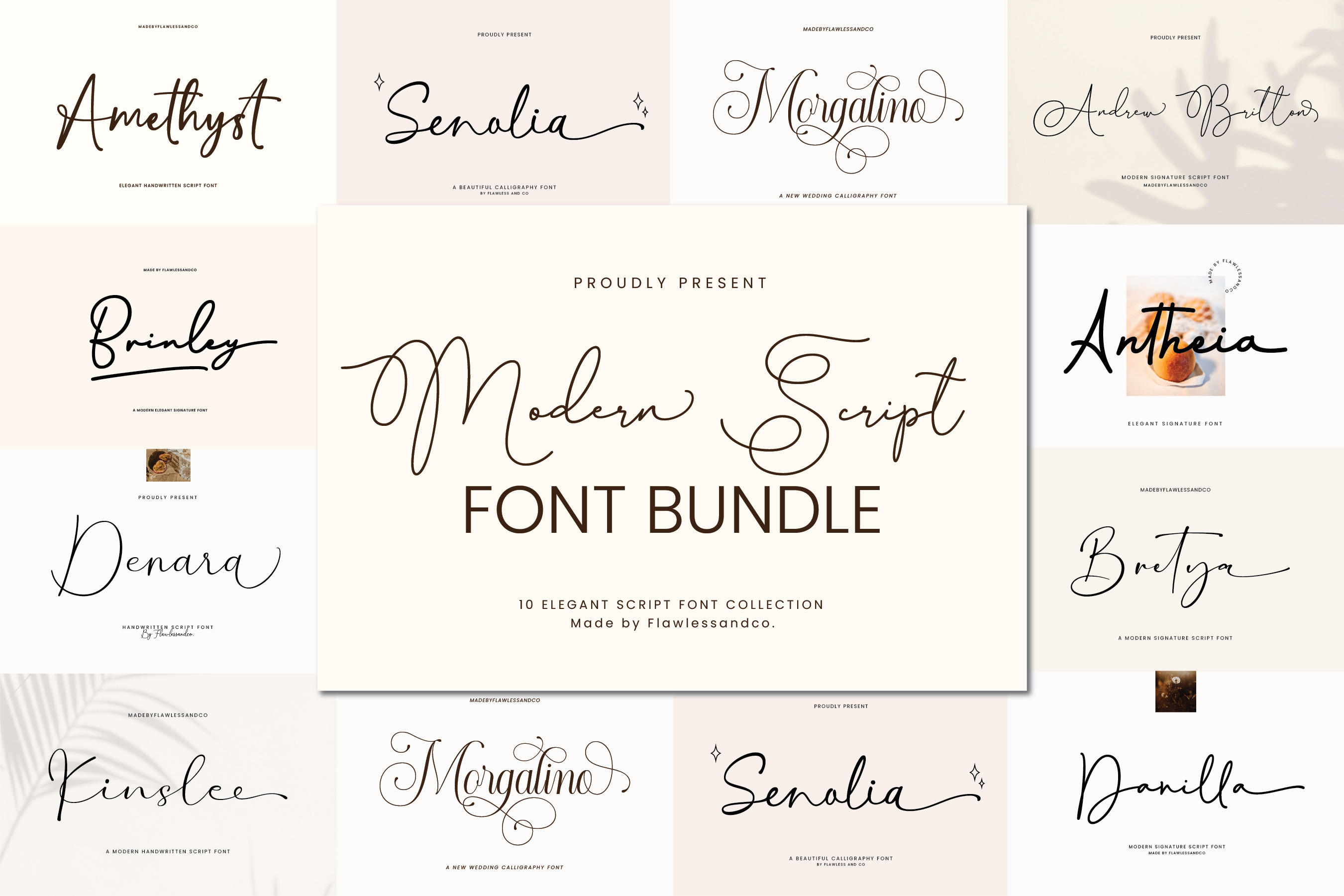
Modern Script Font Bundle
Introducing the "Modern Script Font Bundle" — a collection of ten exquisite script fonts that redefine elegance in every stroke. This exclusive bundle celebrates sophistication, offering a diverse range of signature-style fonts crafted to elevate your designs.
This bundle includes 10 high-quality script fonts. Suitable for any graphic designs such as branding materials, t-shirts, prints, business cards, logos, posters, wedding invitations, photography, quotes .etc
- Amethyst
- Andrew Britton
- Antheia
- Bretya
- Brinley
- Danilla
- Denara
- Kinslee
- Morgalino
- Senolia